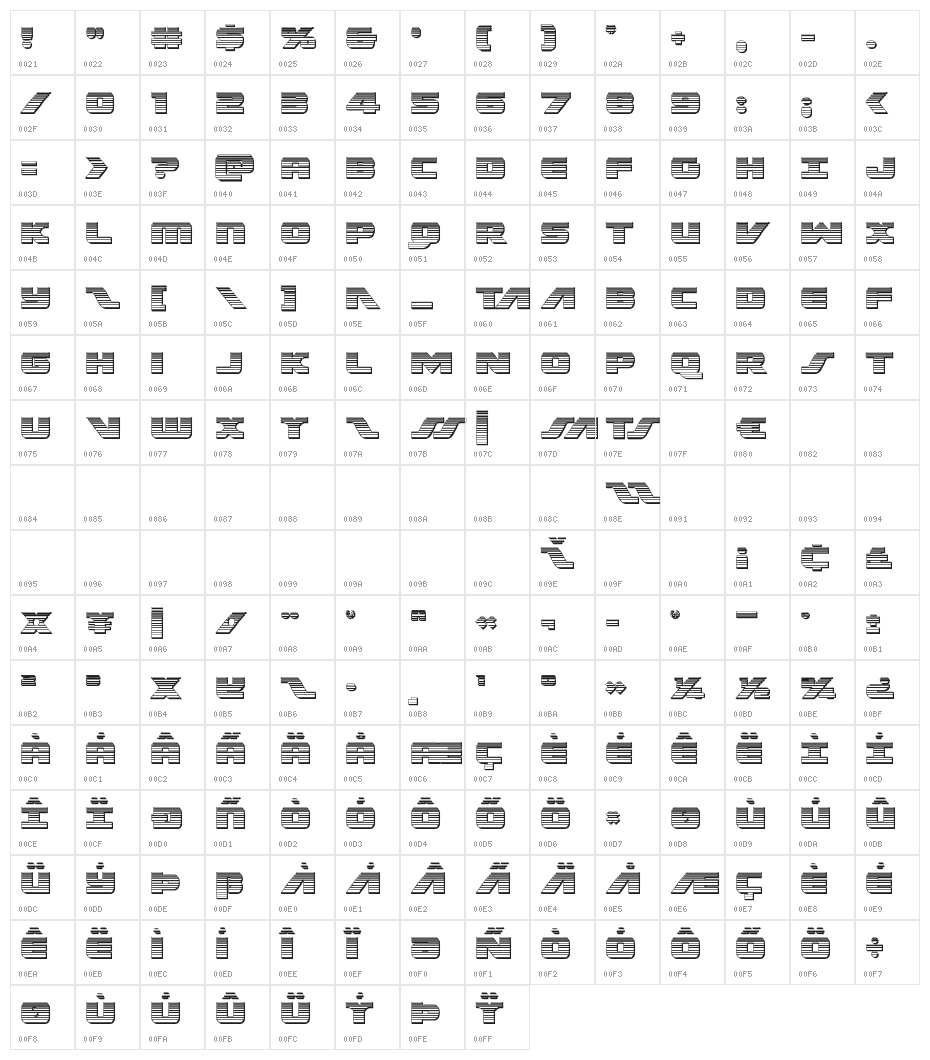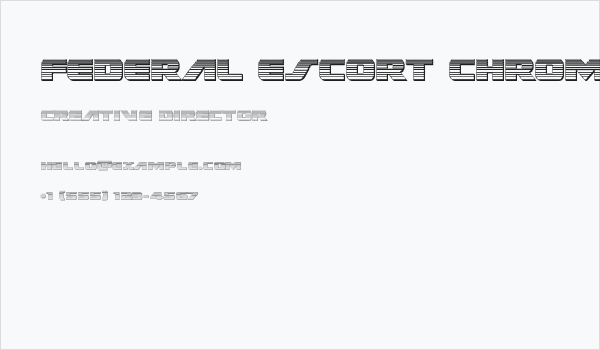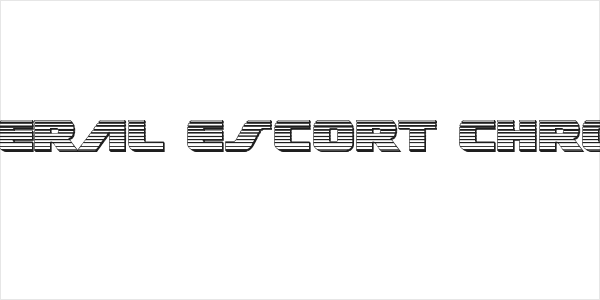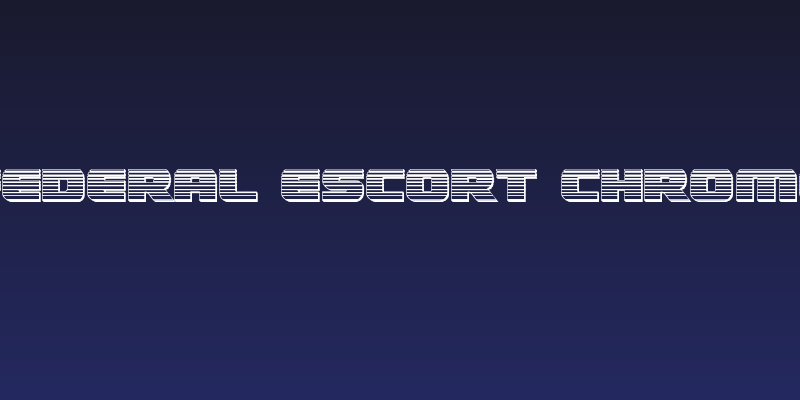
Federal Escort Chrome Font
Federal Escort Chrome Description
This font features a bold, futuristic design with a distinct chrome-like appearance. Each character is composed of multiple parallel lines, creating a layered effect that adds depth and dimension. The geometric structure is consistent across all letters and numbers, giving it a cohesive and modern look. The font's unique style is reminiscent of retro-futuristic aesthetics, making it ideal for projects that require a standout, eye-catching typeface. Its boldness and distinct line work make it suitable for digital and print media where a strong visual impact is desired.
| Overall Style | Futuristic, Retro |
| Proposed Projects | Ideal for sci-fi themed posters, video game titles, branding for tech companies, and futuristic event invitations. |